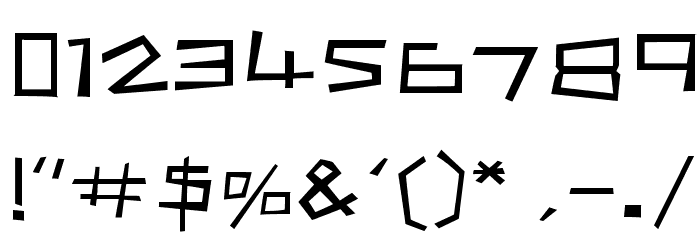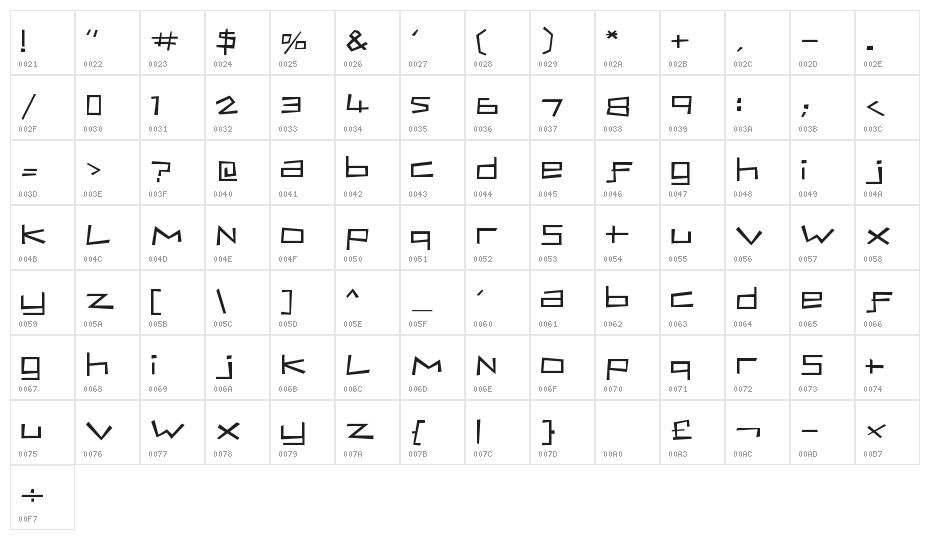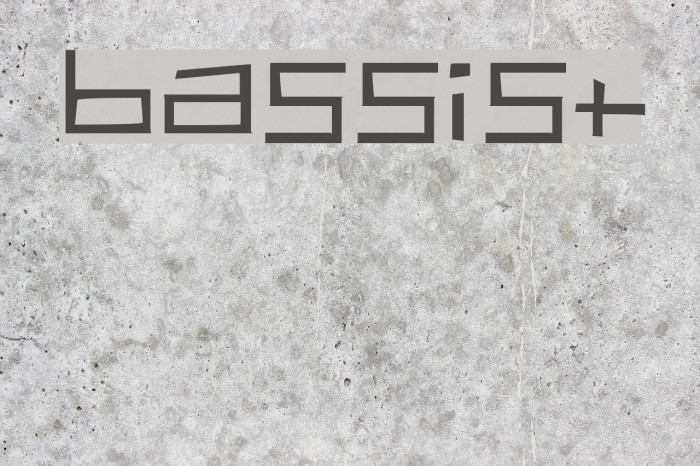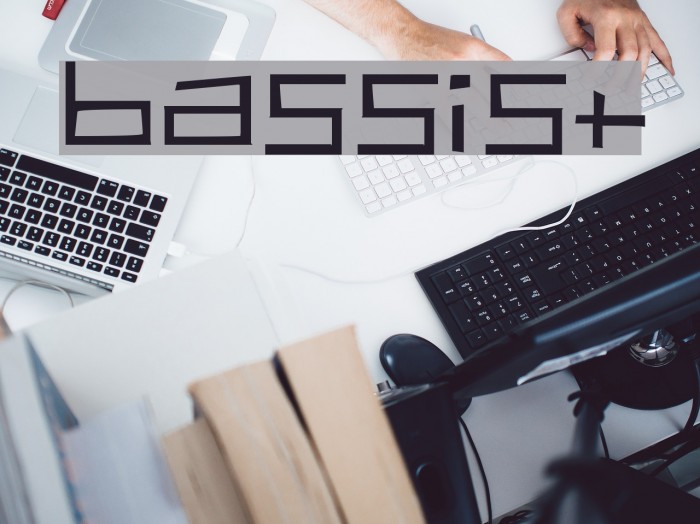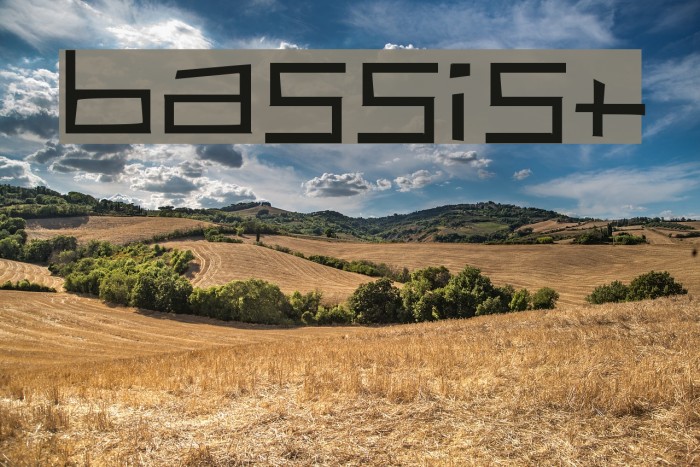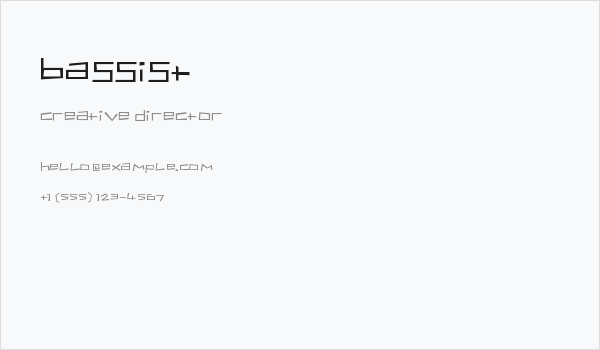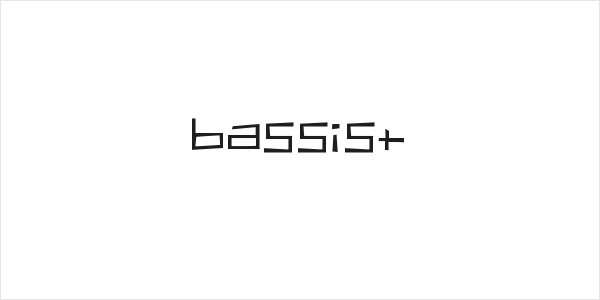
Bassist Font
Bassist Description
This font features a unique and edgy design with angular, geometric shapes that give it a modern and unconventional appearance. The characters are constructed with sharp lines and corners, creating a sense of movement and energy. The uppercase and lowercase letters maintain a consistent style, while the numerals and special characters complement the overall aesthetic. The font's distinctiveness makes it stand out, offering a bold statement in any design project. Its legibility is maintained despite the artistic flair, making it suitable for various creative applications.
| Proposed Projects | Ideal for music album covers, posters, branding for edgy or modern products, and digital artwork. |